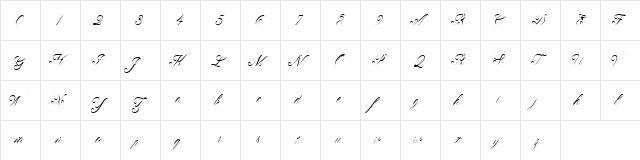
Claudya Script Regular
Foundry herlannawwi
Designerherlannawwi
Design Context for Claudya Script Typeface
Claudya Script brings a calligraphic fluidity to the page — its connecting strokes and expressive curves give it an unmistakably human quality.
Font Pairing: Combine Claudya Script with a simple geometric sans for maximum contrast — the tension between flowing curves and clean structure is a classic typographic pairing.
Pro Tip: Pair Claudya Script with a clean sans-serif for supporting text. The contrast between fluid script and geometric structure creates an elegant typographic hierarchy.